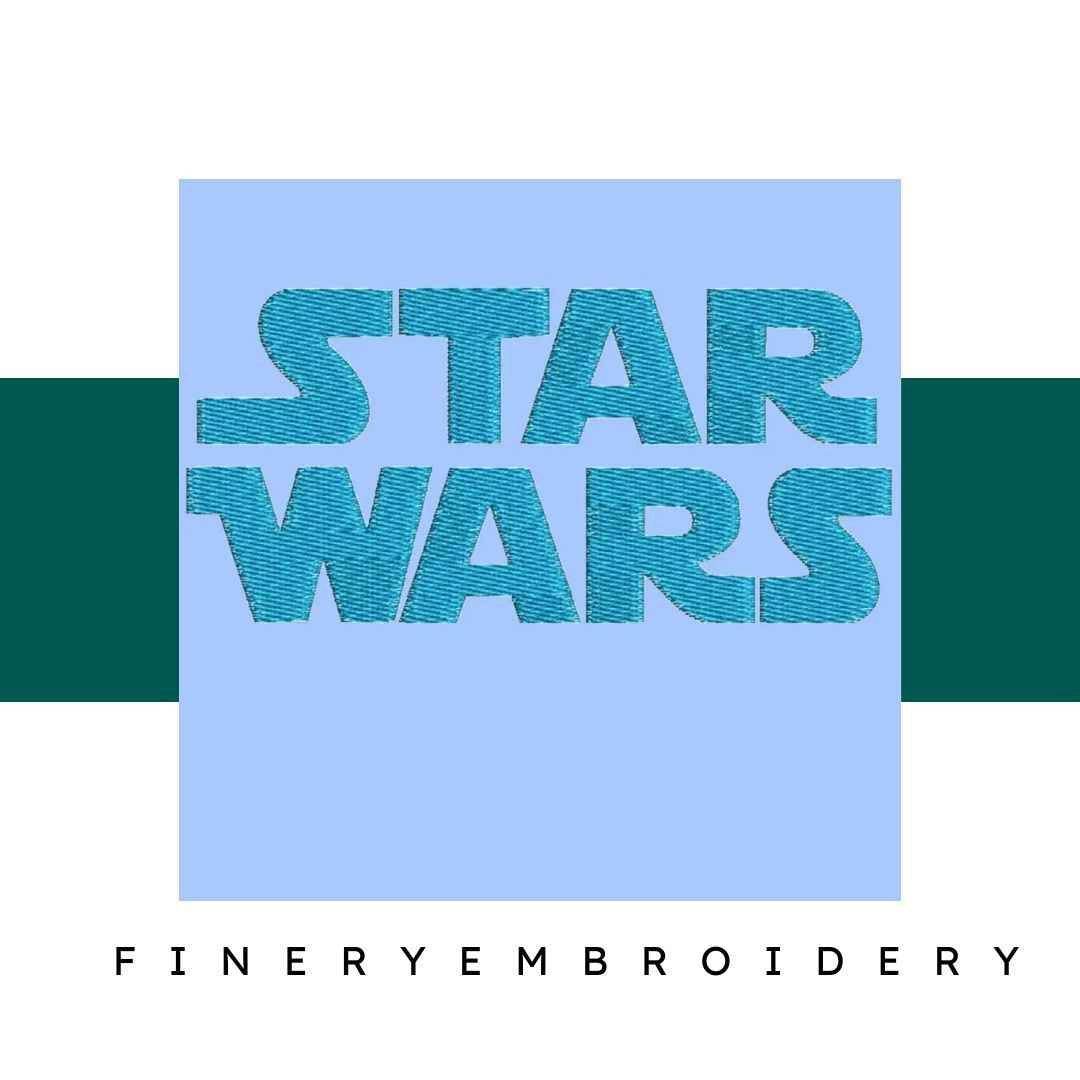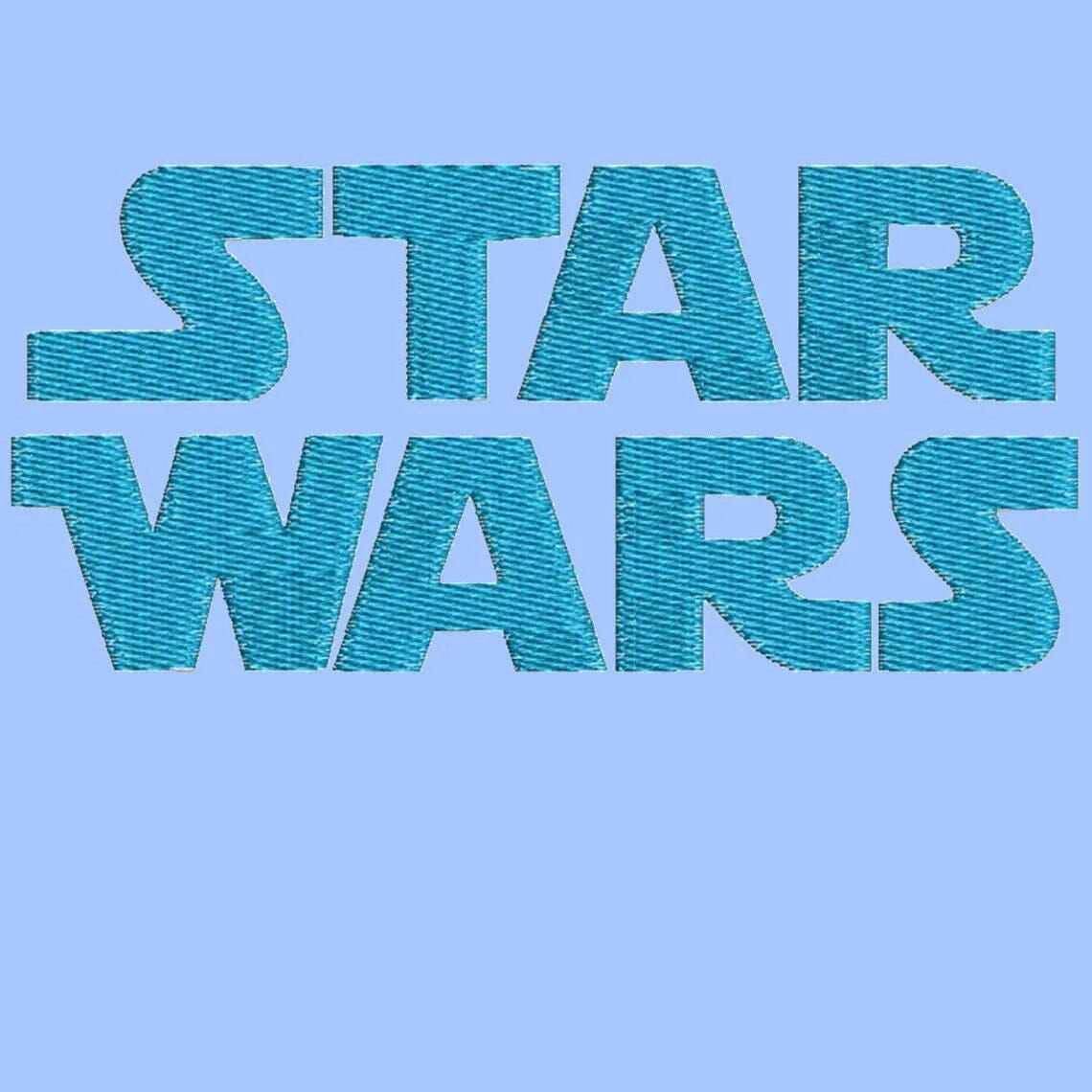
Unleash your creativity with the Star Wars Embroidery Alphabet Font Set - a galactic-inspired collection that transforms your embroidery projects into interstellar masterpieces!
Introducing the Star Wars Embroidery Alphabet Font Set, where the force of creativity meets the elegance of embroidery design. This unique collection is perfect for fans and creators looking to add a cosmic touch to their projects. Whether you're enhancing personalized gifts for friends or decorating your home with a galactic theme, this font set is your ultimate weapon in the embroidery universe.
The Star Wars Embroidery Alphabet Font Set offers a sophisticated yet playful way to infuse your creations with the essence of the beloved franchise. Each letter and symbol is meticulously crafted to reflect the iconic elements of Star Wars, allowing you to create captivating designs that resonate with fellow fans. This collection is more than just a font set; it's an embodiment of your passion for a timeless saga.
This versatile font set opens up a galaxy of possibilities for your embroidery projects. Whether you're personalizing a Jedi robe, creating a themed nursery for a little padawan, or making unique gifts for fellow fans, the Star Wars Embroidery Alphabet Font Set is perfect for all occasions. Let your imagination take flight as you explore various applications that celebrate the spirit of adventure and friendship found in the Star Wars universe.